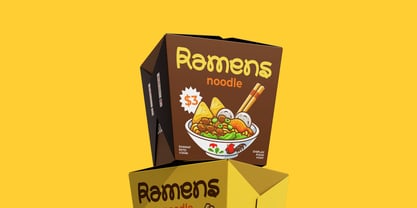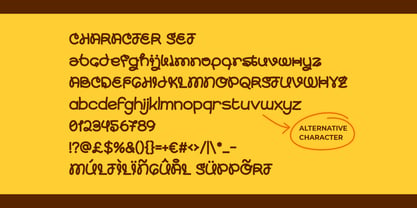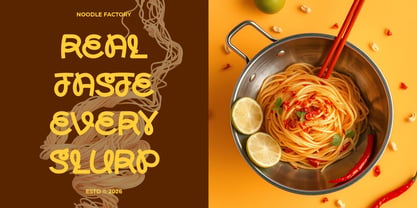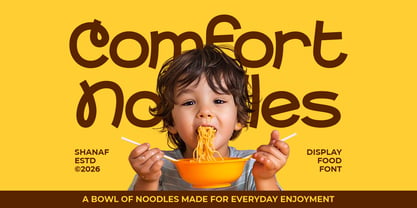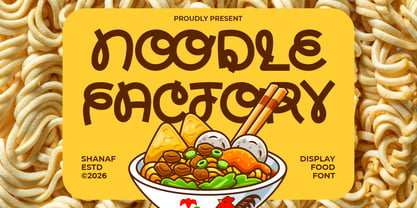
Noodle Factory
Die Schriftfamilie Noodle Factory wurde von Yesie Erma Yunita entworfen und von Shanaf veröffentlicht. Noodle Factory enthält 1 Stile. Mehr über diese Familie
Noodle Factory Curly Food Font brings a cheerful and appetizing personality through its flowing, handcrafted letterforms. Each character features medium-weight strokes, rounded terminals, playful curves, looping details, and irregular constructions that mimic the organic movement of noodles. The letters avoid rigid geometry and instead embrace a casual rhythm that feels warm, friendly, and inviting. This approach creates a strong handcrafted impression while maintaining excellent readability for branding and promotional materials. The font combines food-inspired charm with a creative display character, making every word feel lively and memorable. Noodle Factory Curly Food Font works exceptionally well for logos, branding, packaging, product labels, menu designs, restaurant promotions, food advertisements, posters, headlines, stickers, magazine covers, greeting cards, invitation cards, crafting projects, social media content, and business identities. The playful construction helps brands appear approachable while standing out in competitive markets. Curved shapes and whimsical details create an enjoyable visual experience that instantly communicates flavor, comfort, creativity, and fun. Designers can use this font to build strong visual identities that connect with audiences through warmth and personality.
This font supports a wide range of food and beverage businesses beyond noodle-related products. It fits restaurant branding, ramen shops, food stalls, street food businesses, food trucks, cafes, bakeries, pizza brands, burger brands, sandwich brands, dessert shops, ice cream businesses, snack products, candy products, sauce products, and packaged food labels. The friendly character also works for juice brands, tea brands, milk beverages, flavored drinks, healthy drinks, and family-oriented food campaigns. Its handcrafted appearance makes it suitable for children's products, cooking events, culinary festivals, recipe books, food magazines, kitchen businesses, and local market promotions. The alternative characters add flexibility when creating distinctive logos and customized brand identities. This font performs strongly in headlines, advertisements, packaging, promotional graphics, and product presentations where personality matters. Its curly structure captures the joyful spirit of handmade food while helping brands feel welcoming and memorable. Whether used for a restaurant logo, food packaging, menu headline, or culinary campaign, the font delivers a playful identity that attracts attention and strengthens brand recognition.